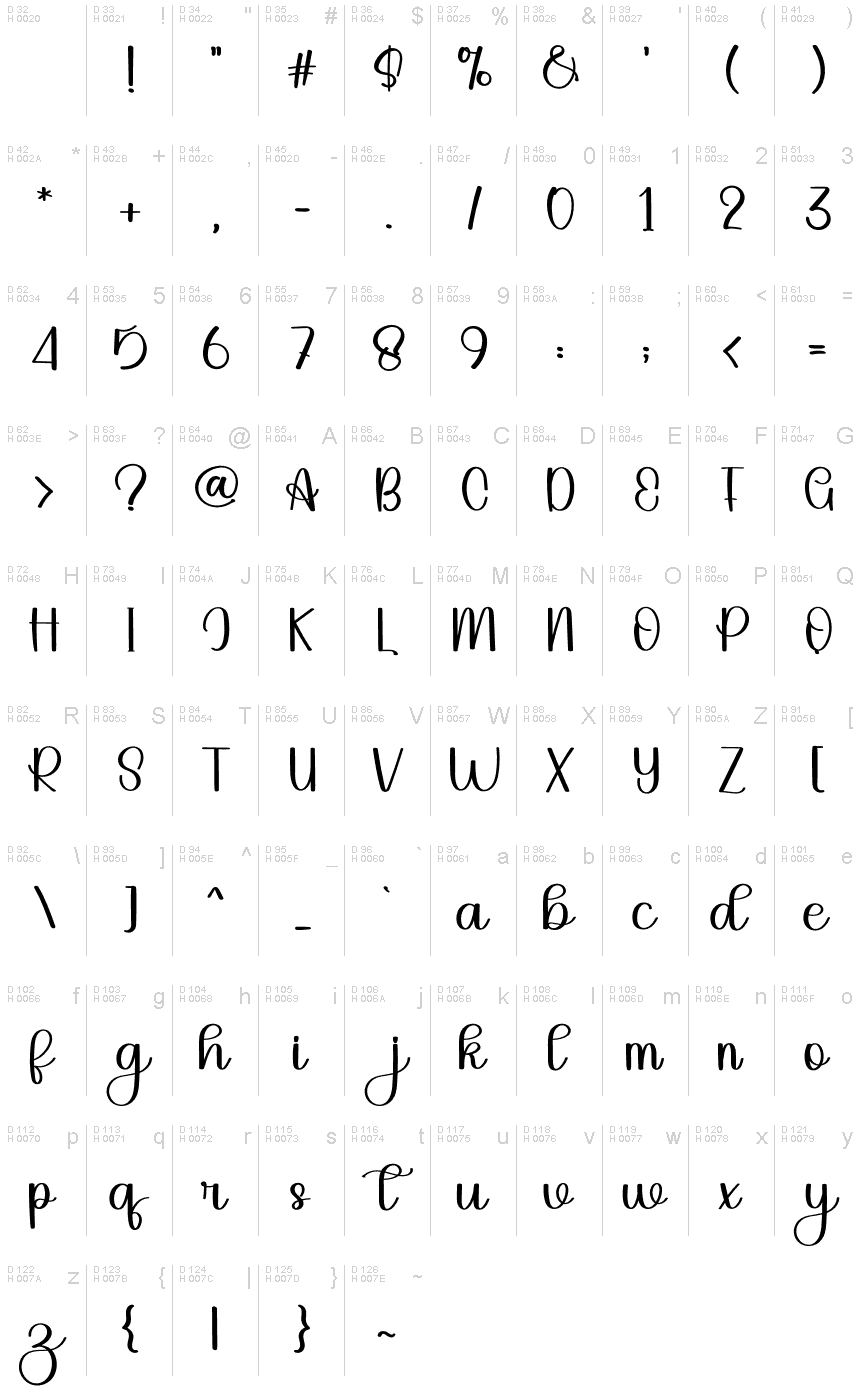
Writer
Writer, the enchanting creation by FreshtypeINK, brings the art of handwriting to the digital realm. With its lovely handwritten style, this font adds a touch of elegance and personalization to any project.
Its delicate curves and graceful strokes make it perfect for wedding invitations, romantic greeting cards, and heartfelt love letters. For branding, Writer's charm can infuse a sense of warmth and authenticity into logos, packaging designs, and social media graphics. Whether you're crafting a whimsical children's book or an intimate journal layout, Writer is your loyal companion in expressing creativity with finesse.